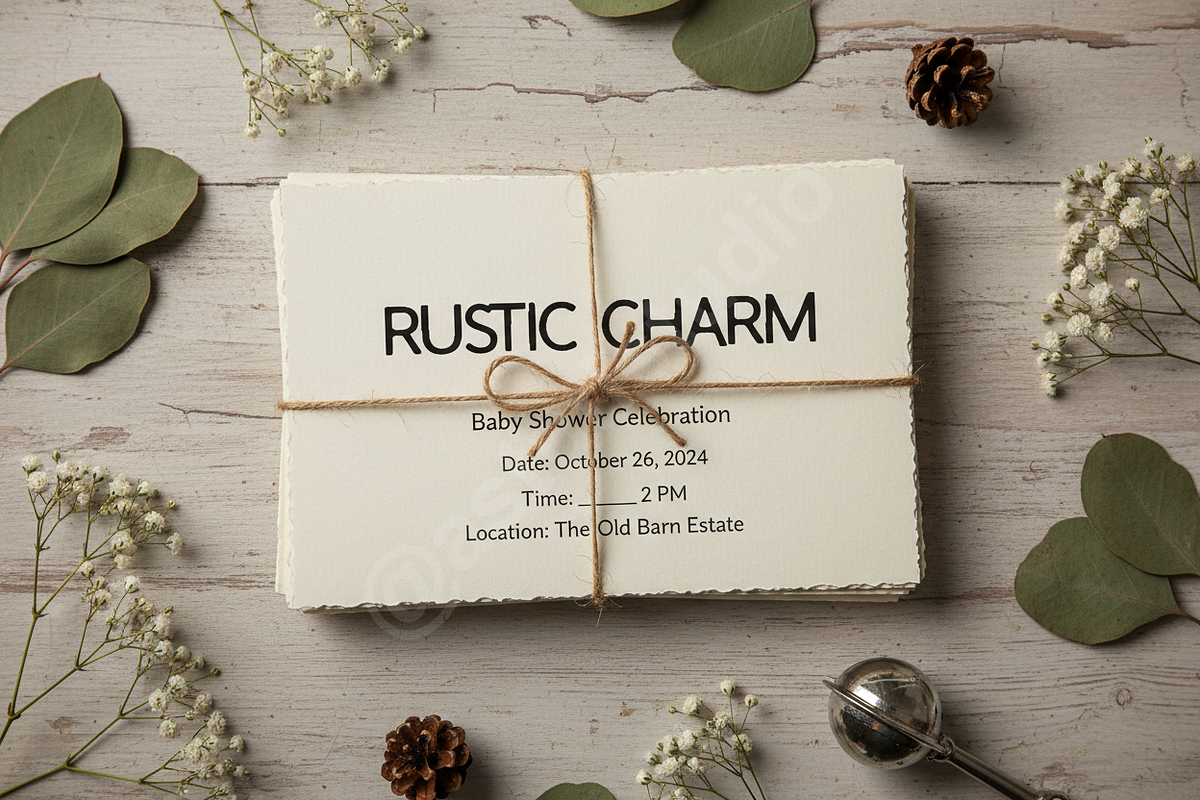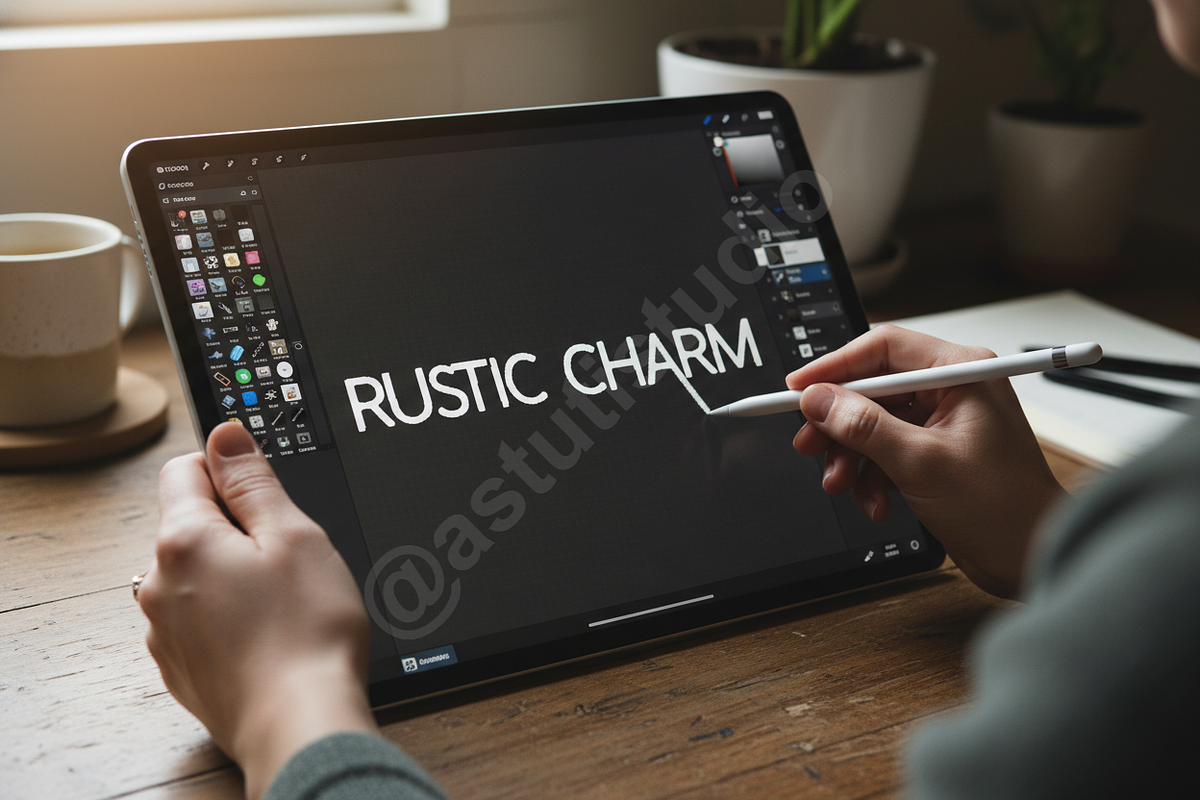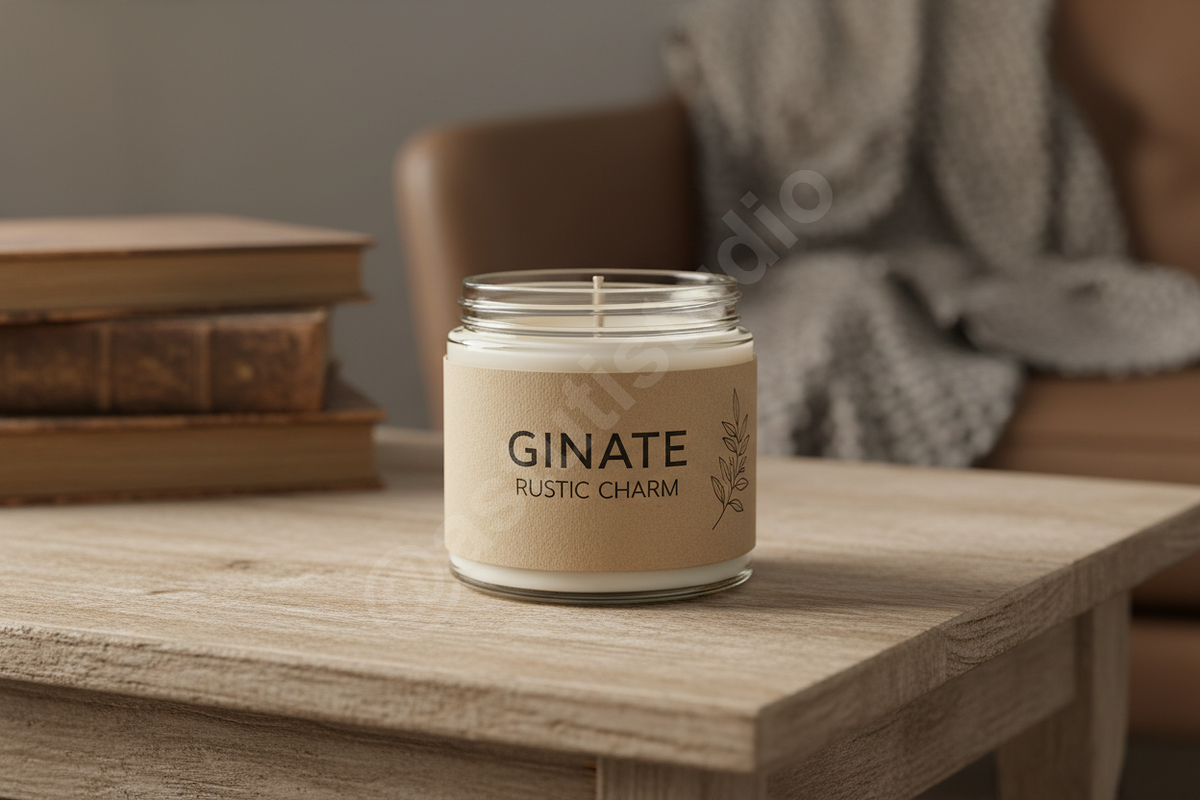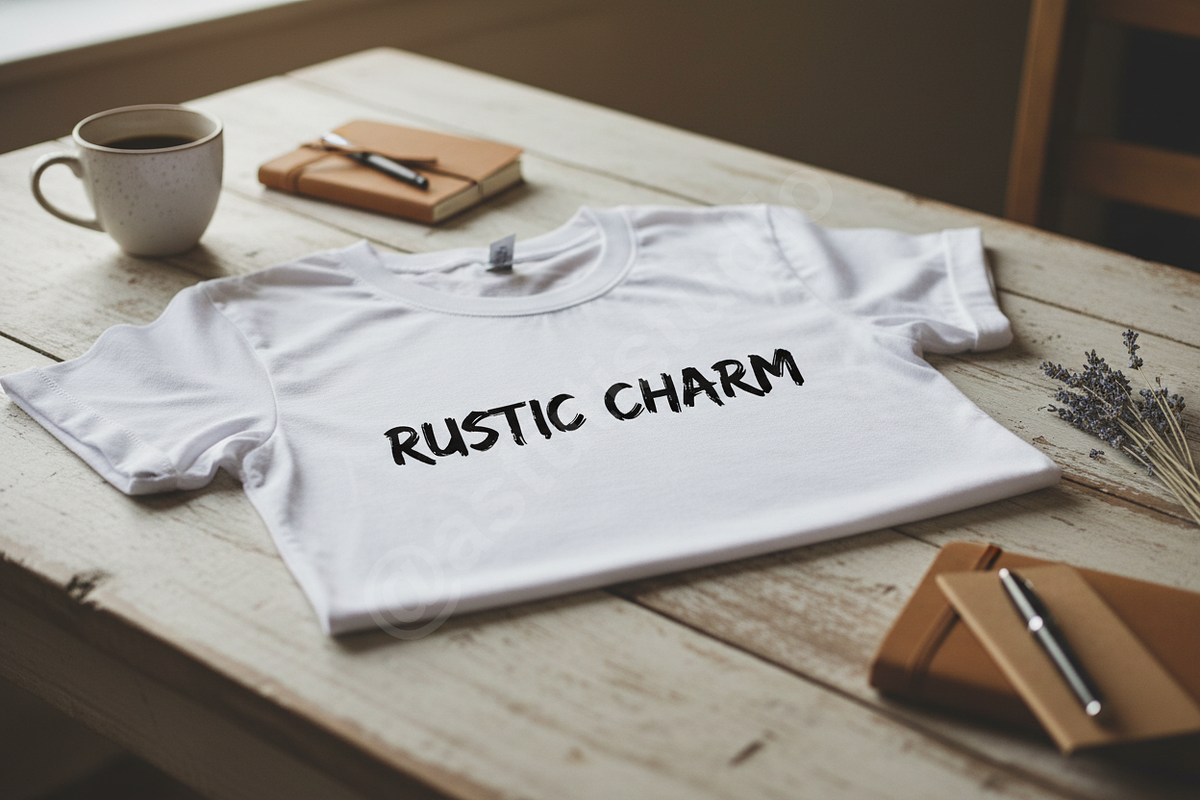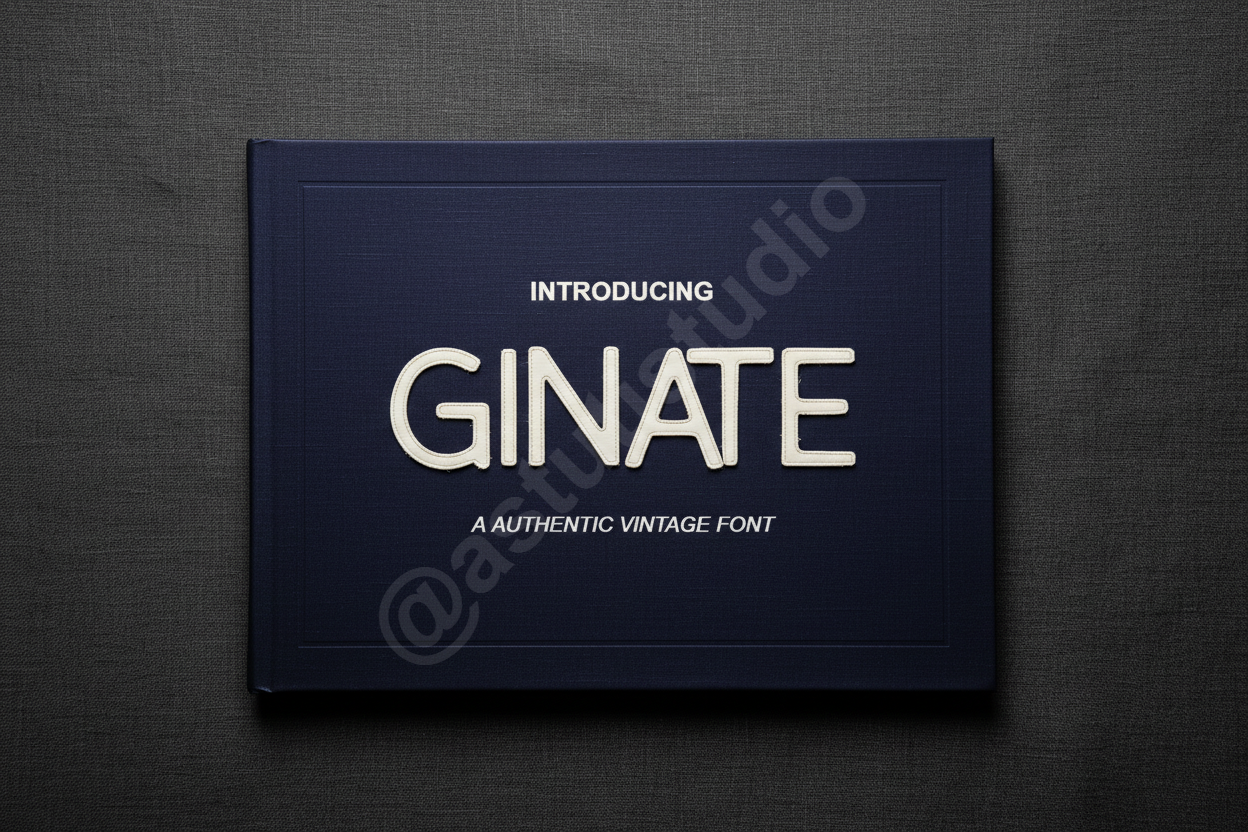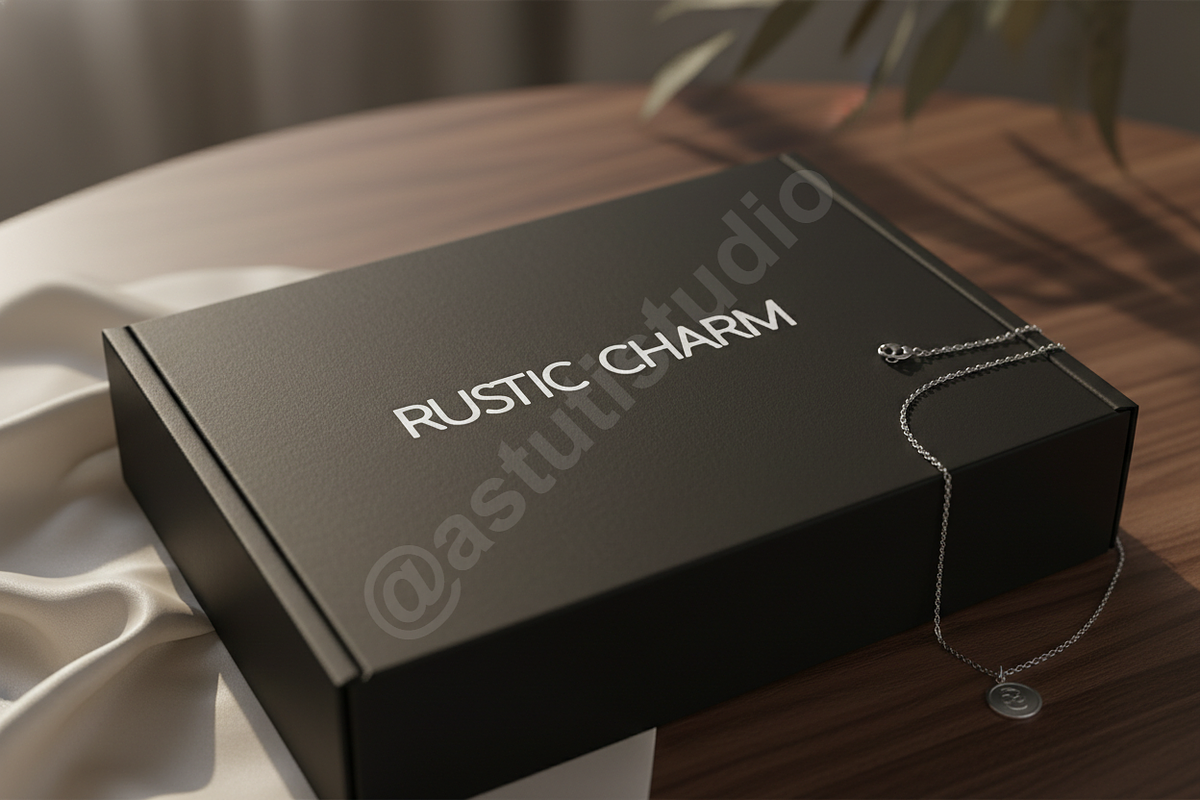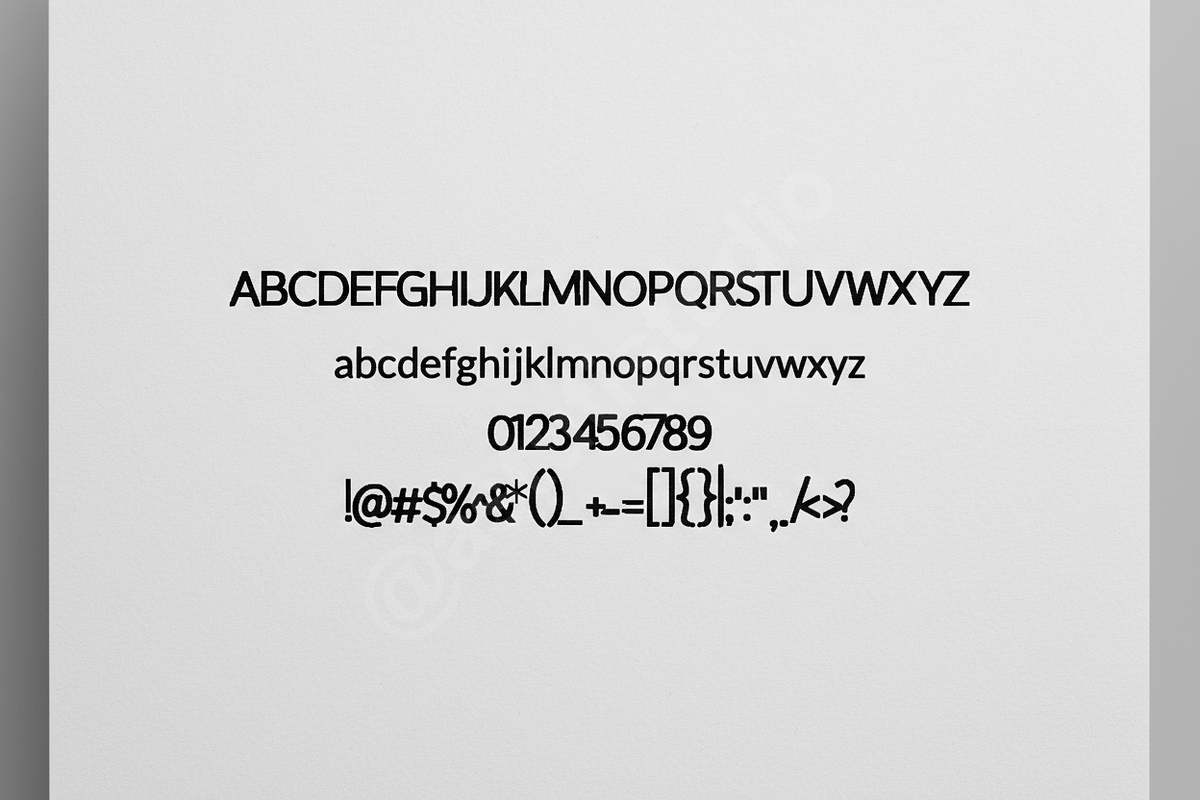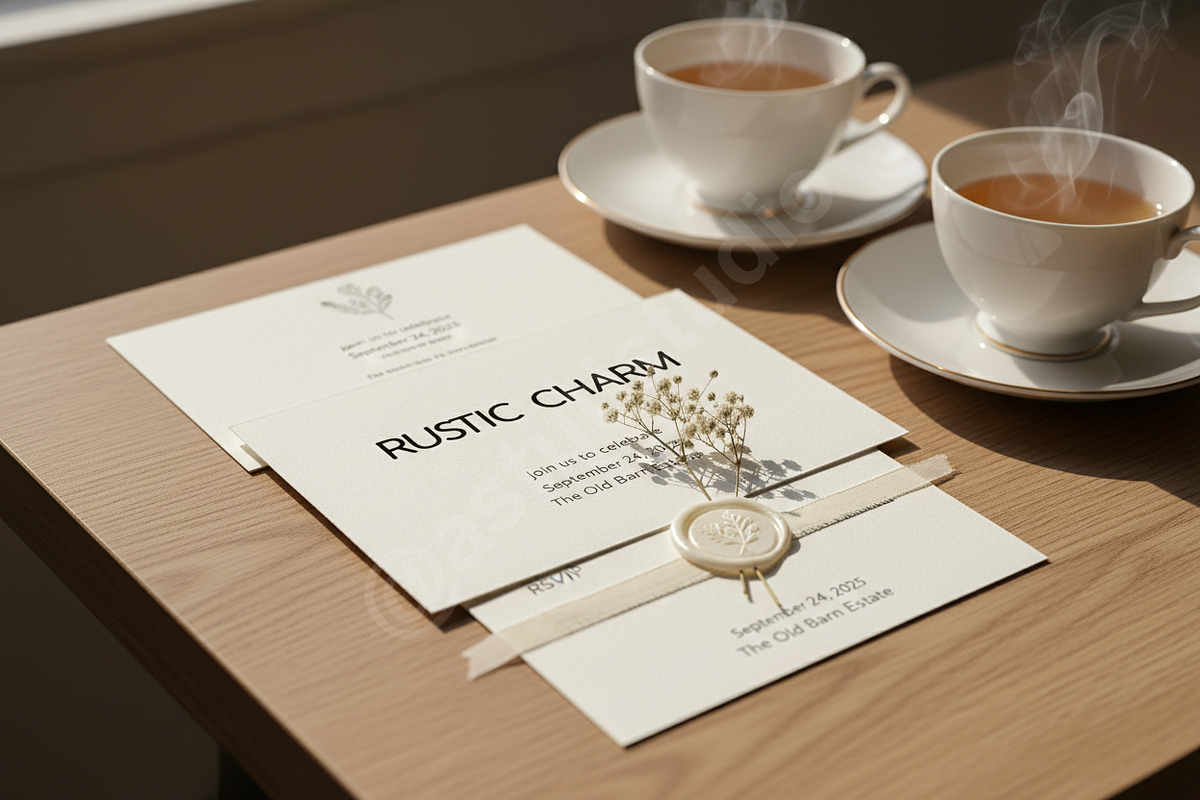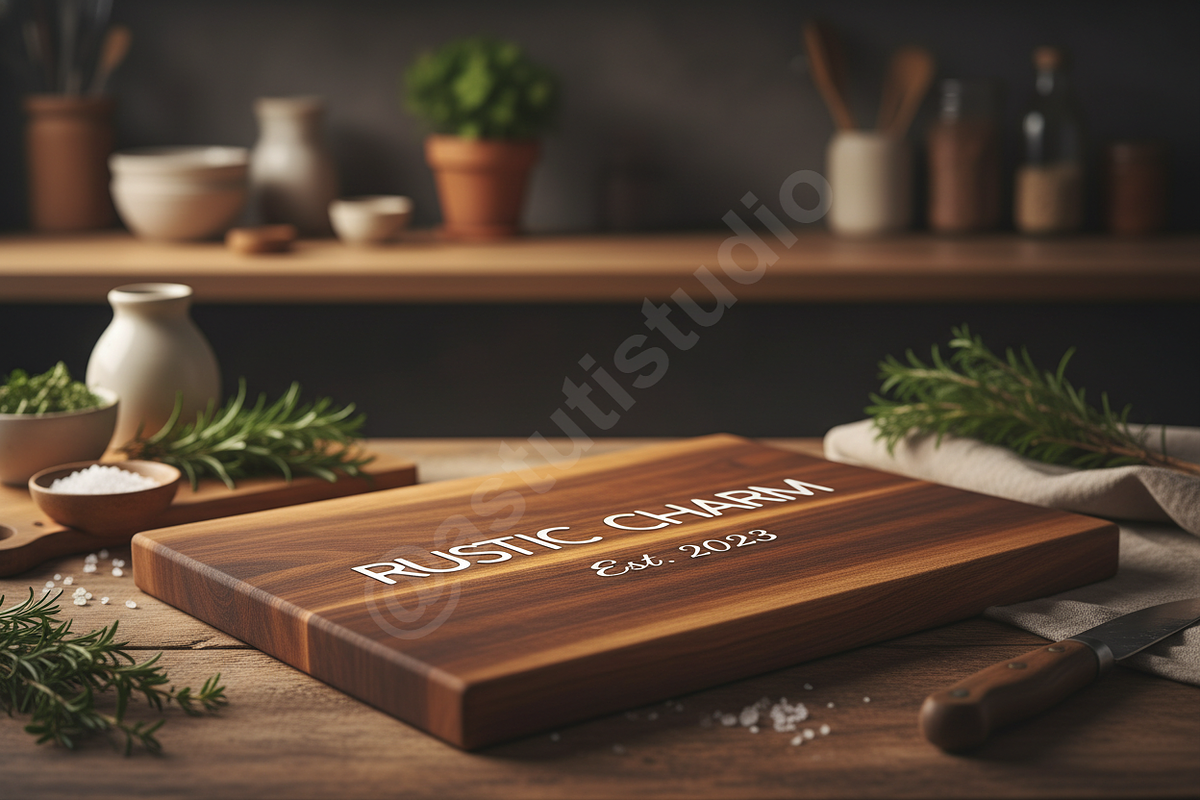
Ginate Font – Elegant Serif Typeface
Ginate Font: Elevate Your Brand with Timeless Sophistication
Introduction: Introducing Ginate, an exquisite serif typeface designed to embody luxury and refined elegance. Crafted with meticulous attention to detail, Ginate is the quintessential choice for brands seeking to convey prestige and exclusivity. Its graceful curves and precise lines make it perfect for high-end luxury branding, sophisticated editorial design, impactful advertising, and polished social media presence. Ginate transcends mere typography, offering a voice that speaks of heritage, quality, and discerning taste.
- Elegant Serif Design: A classic yet contemporary aesthetic that commands attention.
- Versatile Application: Optimized for both display and body text, ensuring readability across various applications.
- Extensive Ligatures & Alternates: Enhance creative versatility and typographic sophistication for unique letter pairings.
- Multi-Language Support: Broad language compatibility to reach a global audience.
- Professional Kerning & Spacing: Meticulously adjusted for flawless visual rhythm and balance across all characters.
- Full Character Set (uppercase, lowercase, numbers, punctuation, multilingual accents)